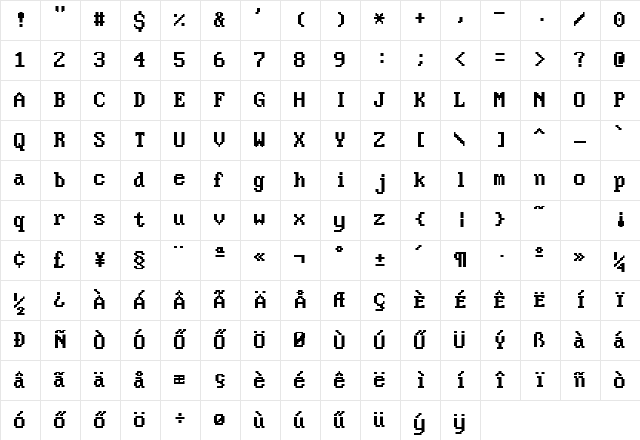
Complete H_Video Terminal Screen Regular glyph index. Displaying only characters natively supported by H_Video Terminal Screen Regular font.
H_Video Terminal Screen is a composed and adaptable typeface that performs quietly and consistently across a wide range of design contexts.